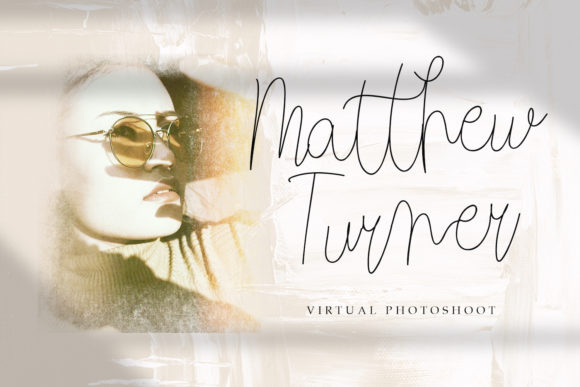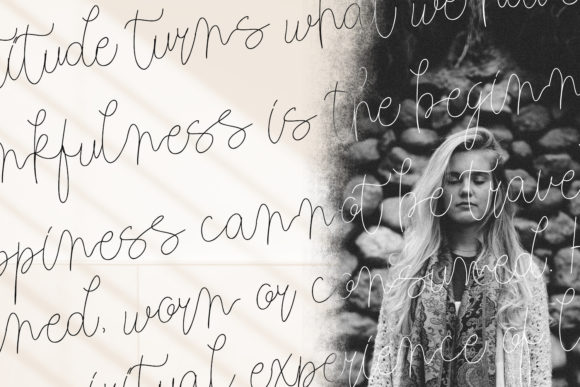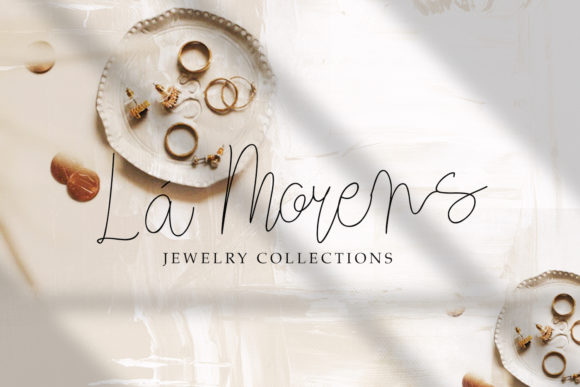
Introduction to Justhin Font
Justhin is a magical script font carefully created with a touch of elegance.
This is a beautiful combination of timeless elegance and authentic calligraphy It features an incredibly classic style, while still keeping a friendly feel.
Key Features of Justhin Font